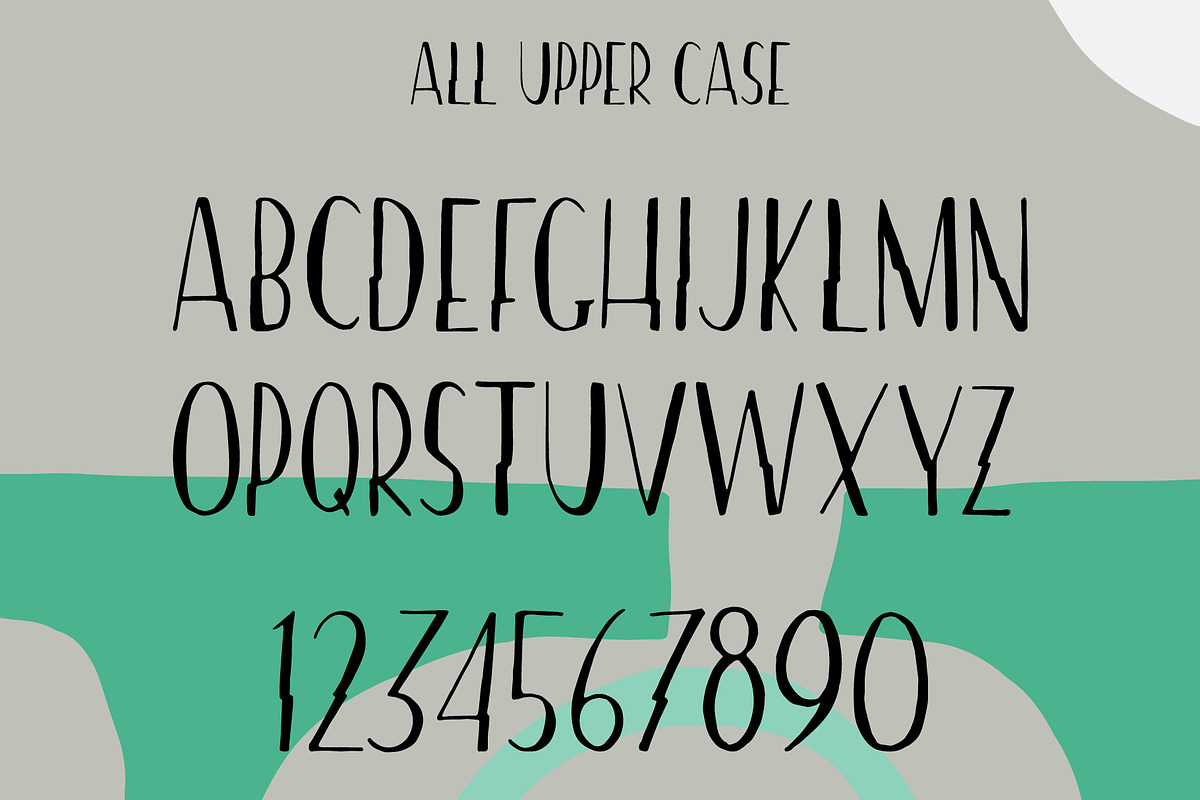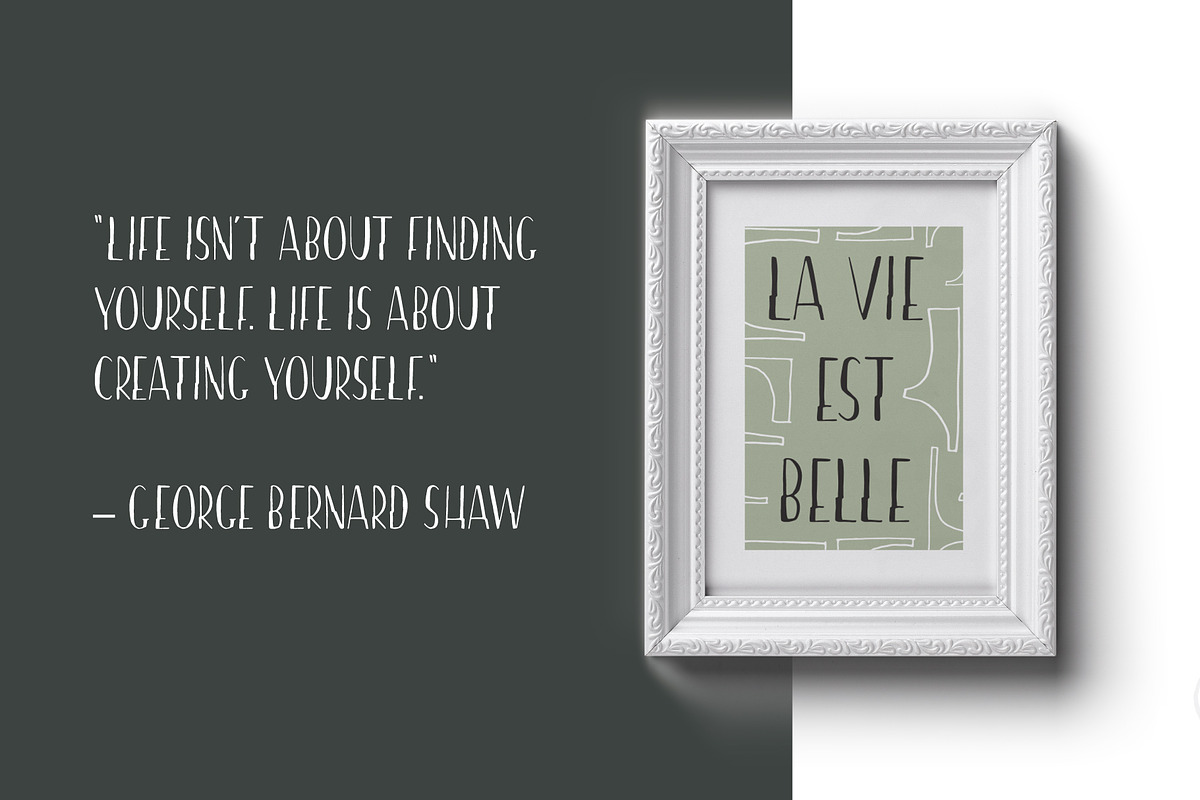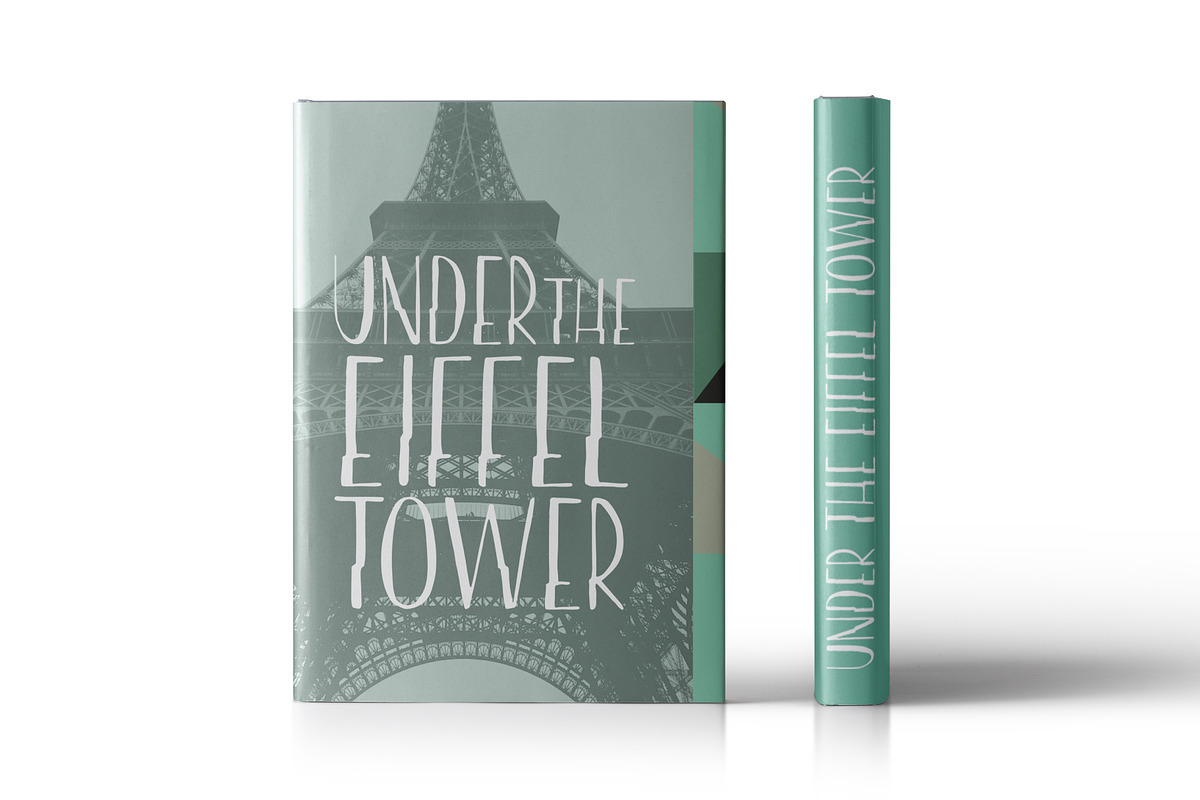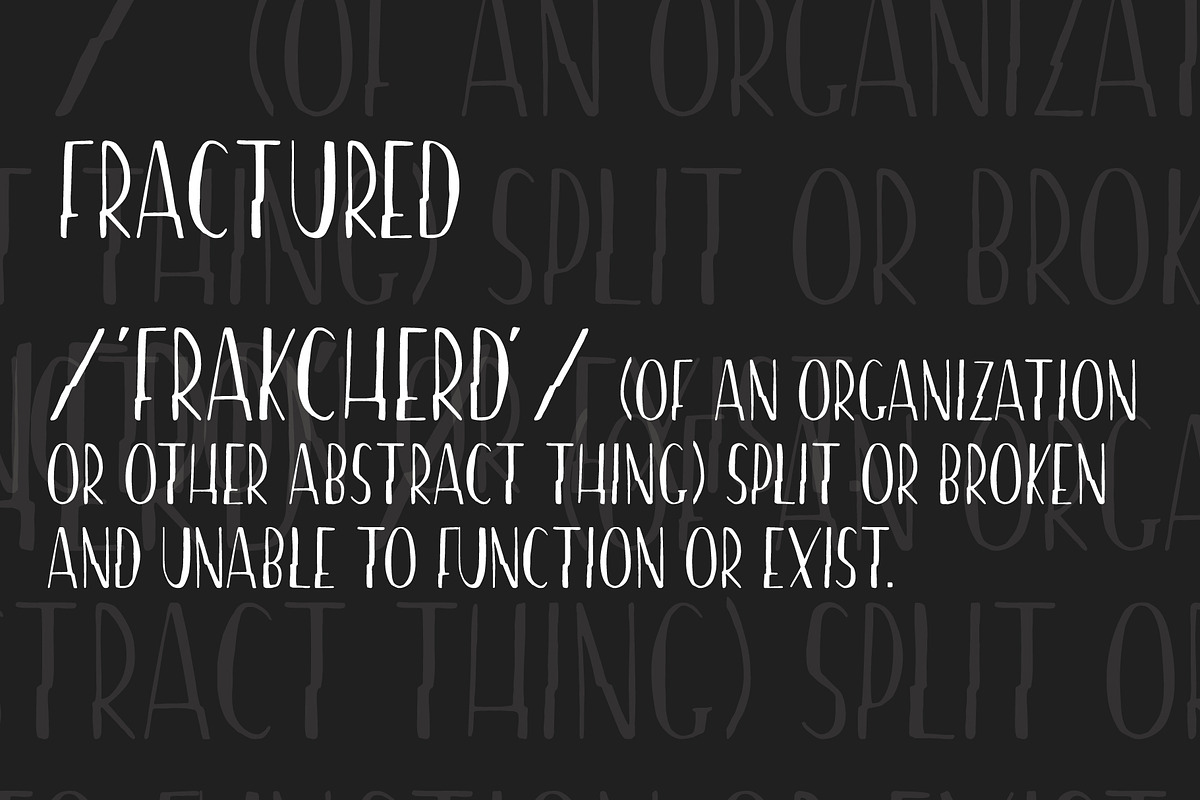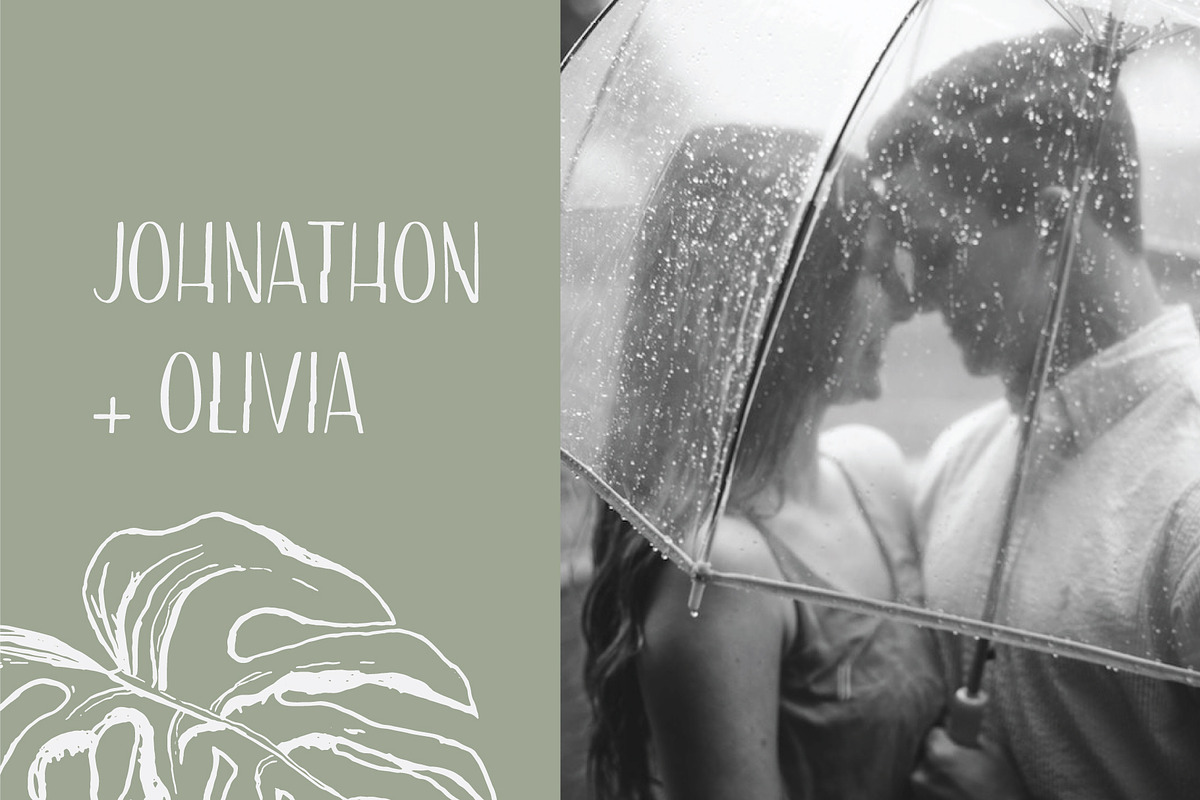
Fractured | Hand drawn Font
Hand-Drawn Sans Serif font inspired by the Art Deco aesthetic. Use font to create everything from LOGOs to wedding stationery.
This is an uppercase only font. Whether caps lock is on or off, the font will be the same.